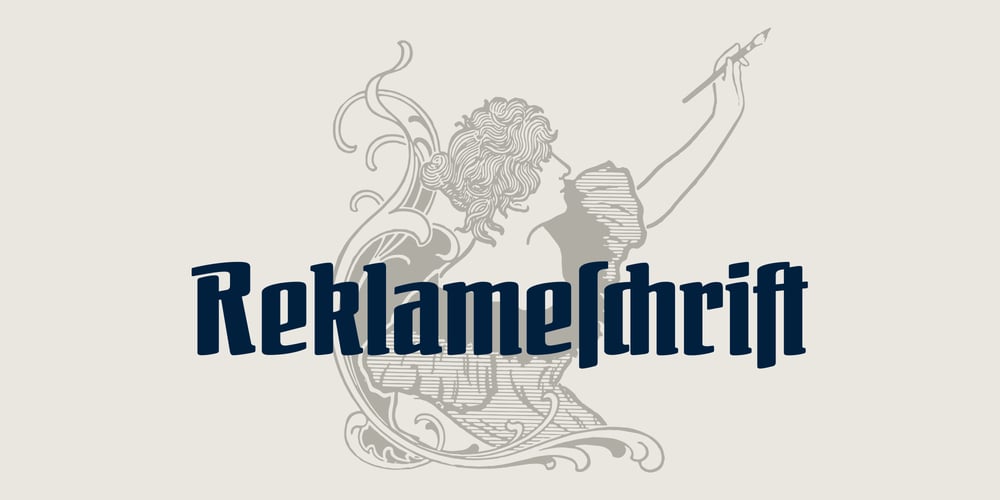
FDI Reklameschrift Font Family was designed by Ralf Herrmann and published by FDI. FDI Reklameschrift contains 2 styles and family package options. FDI Reklameschrift is a carefully crafted digitization and extension of “Reklameschrift Bombe”, originally released in 1908 at the type foundry Ludwig & Mayer. FDI Reklameschrift covers Western, Eastern and Central European Latin and comes in two versions: Version A is as close as possible to the original design, containing some blackletter-style letterforms. Version B replaces these letterforms to improve legibility and allow a modern use.